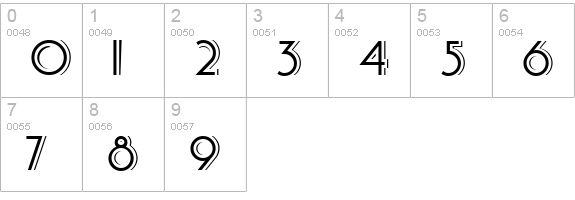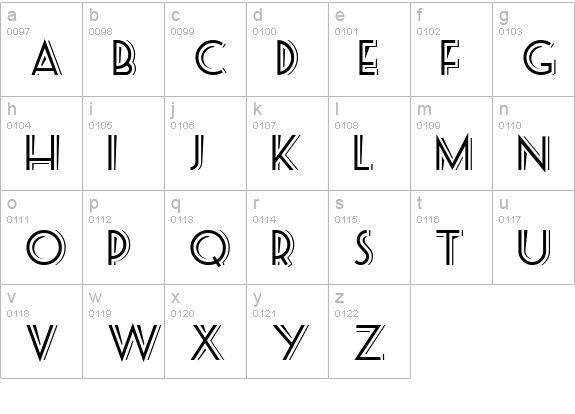
SeasideResortNF Font Details
SeasideResortNF font is a delightful and captivating typeface that embodies the essence of a tranquil seaside getaway. With its curvaceous and flowing letterforms, this font exudes a sense of relaxation and serenity, making it the perfect choice for designs that aim to transport the viewer to a coastal paradise. The elegant strokes and intricate details of SeasideResortNF font create a harmonious balance between sophistication and playfulness. It effortlessly captures the gentle breeze, the shimmering waves, and the golden sands of a picturesque beach, making it an ideal choice for a wide range of design projects. Whether you are designing a tropical-themed invitation, a beach resort brochure, or a summer-themed poster, SeasideResortNF font will add a touch of elegance and charm to your creations. Its versatile nature allows it to be used in both large headlines and small body text, ensuring that your message is conveyed with clarity and style. One of the most appealing aspects of SeasideResortNF font is that it is freely available to download at FontsMarket.com. This means that you can effortlessly incorporate this stunning typeface into your designs without any additional cost. Its availability ensures that designers of all budgets can enjoy the beauty and versatility of SeasideResortNF font, making it a truly inclusive and invaluable resource. In conclusion, SeasideResortNF font is a captivating and elegant typeface that effortlessly captures the essence of a seaside retreat. With its free availability at FontsMarket.com, it is a font that can be enjoyed by designers of all backgrounds and budgets. So why wait? Dive into the beauty of SeasideResortNF font and let your designs shine with a touch of coastal charm.